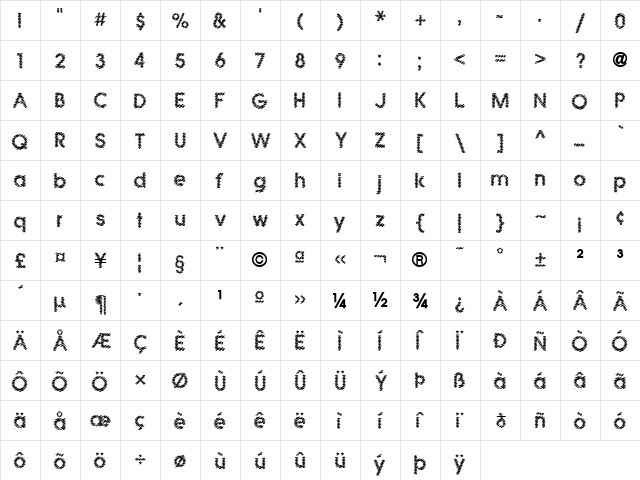
QuicksansFastICG Medium
Design Context for QuicksansFastICG Typeface
QuicksansFastICG is a composed and adaptable typeface that performs quietly and consistently across a wide range of design contexts.
Pro Tip: Use QuicksansFastICG in both headline and body roles to test its range before committing to a single application.